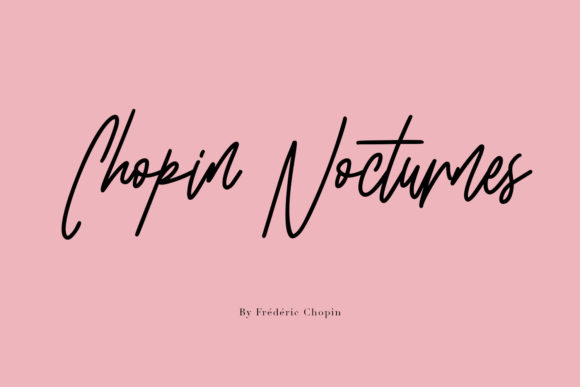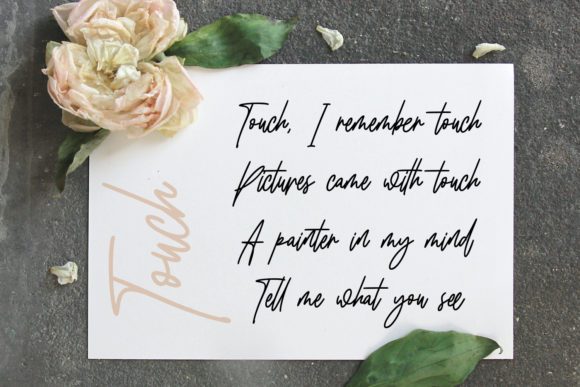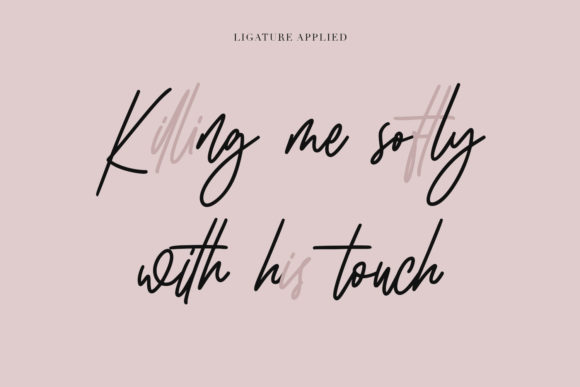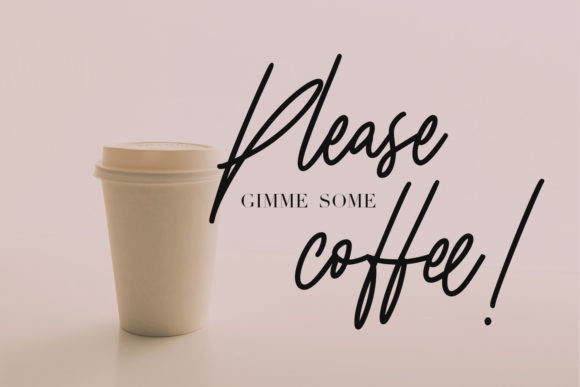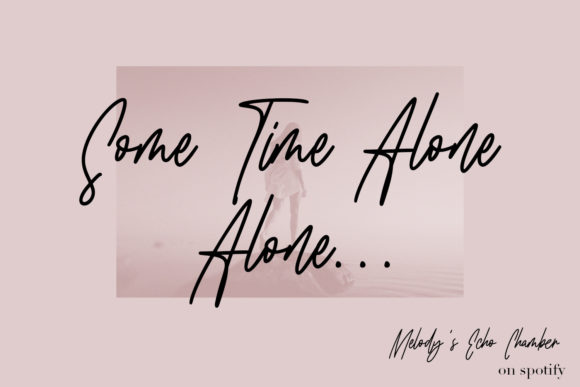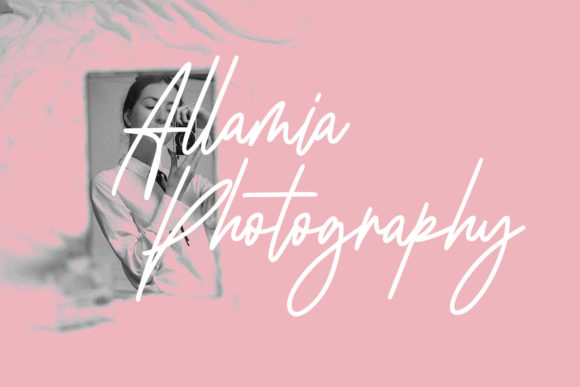
The Perfect Font for Your Next Design Project
You’ve been staring at a blank page for what feels like hours, trying to find the perfect font to bring your design to life. The words are flowing, but something’s missing – a touch of elegance, a dash of sophistication. That’s when you remember the power of the right font. In this case, it’s all about Gentlysoftly Font, a beautiful, cursive script font that adds a luxury spark to any design project.
Whether you’re working on a wedding invitation, a luxury brand brochure, or a website header, Gentlysoftly Font is the perfect choice. Its relaxed, stylish design is incredibly versatile, making it easy to use in a variety of settings. With Gentlysoftly Font, you can create spectacular designs that will leave a lasting impression on your audience.
Gentlysoftly Font Key Features
- Font Size: The font includes 8 weights, ranging from Light to Extra Bold, providing versatility for various design applications.
- Unique Characteristics: This font features a soft, elegant script style with subtle flourishes, making it ideal for creating invitations, wedding stationery, and other formal documents.
Designer Review: Gentlysoftly Font
I recently had the chance to work with the Gentlysoftly Font, and I must say it’s a unique addition to any design project. ✨ One of the things I appreciate about this font is its gentle, flowing curves. It’s perfect for creating a sense of calm and serenity in any design. The font’s subtle nuances make it ideal for use in branding, invitations, and other materials where a touch of elegance is needed.
Another advantage of the Gentlysoftly Font is its versatility. ✨ It comes in a range of weights and styles, making it easy to find the perfect version to suit your design needs. Whether you’re creating a modern logo or a vintage-inspired design, this font has got you covered.
While the Gentlysoftly Font is a great addition to any design project, there are a few limitations to keep in mind. ⚠️ For one, the font may not be the best choice for use in headlines or titles, as it can be difficult to read in smaller sizes. Additionally, the font’s delicate nature may make it prone to overuse or misinterpretation. It’s essential to use it thoughtfully and in moderation to avoid overemphasizing a design’s emotional tone.
Overall, I’m impressed with the Gentlysoftly Font’s unique character and versatility. While it may not be the best choice for every design project, it’s a valuable addition to any designer’s toolkit. With careful use, this font can add a touch of sophistication and elegance to any design.
- Unique, flowing curves
- Range of weights and styles
- Perfect for branding, invitations, and other materials
- May not be suitable for headlines or titles
- Delicate nature may require thoughtful use
Gentlysoftly Font Practical Application Guide
Tips for Getting the Most Out of Gentlysoftly Font
Use Gentlysoftly Font to create a calming and elegant design aesthetic. Pair it with other soft fonts for a cohesive look. Experiment with different font sizes and colors to create visual interest.
Gentlysoftly Font is ideal for:
- Children’s book illustrations.
- Calming and soothing branding materials.